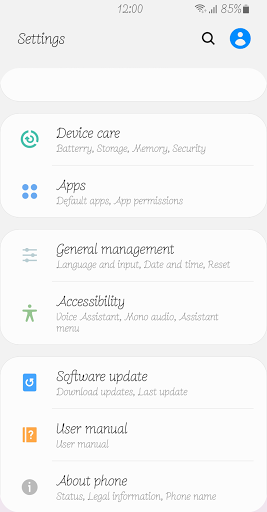
Nm SoftBreeze™ Latin and Cyril
NmSoftBreeze
NmSoftBreeze is a lovely and cute font and has good readability. Customize your phone with NmSoftBreeze. Please try this font and leave your feedback.